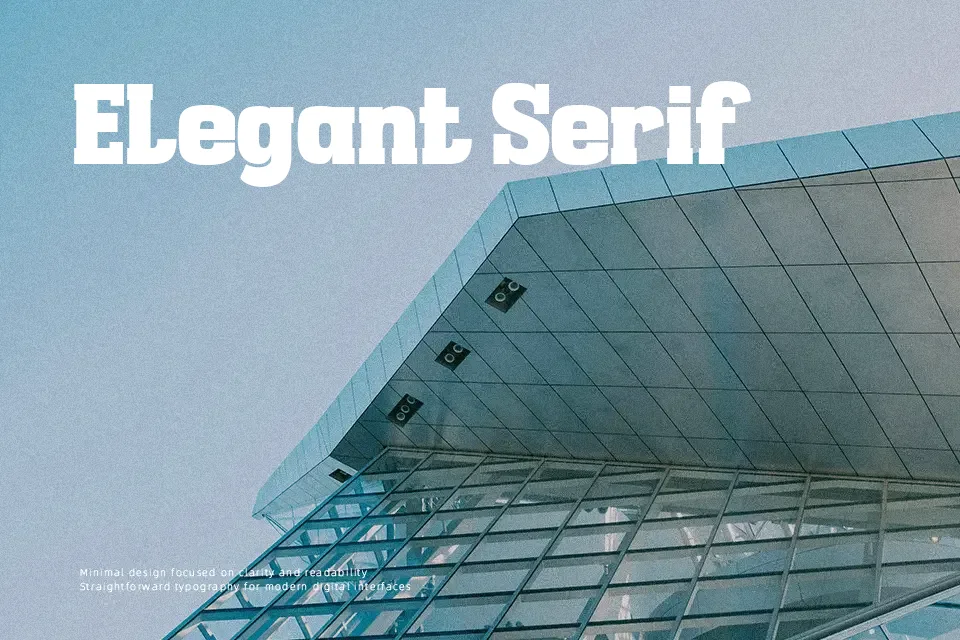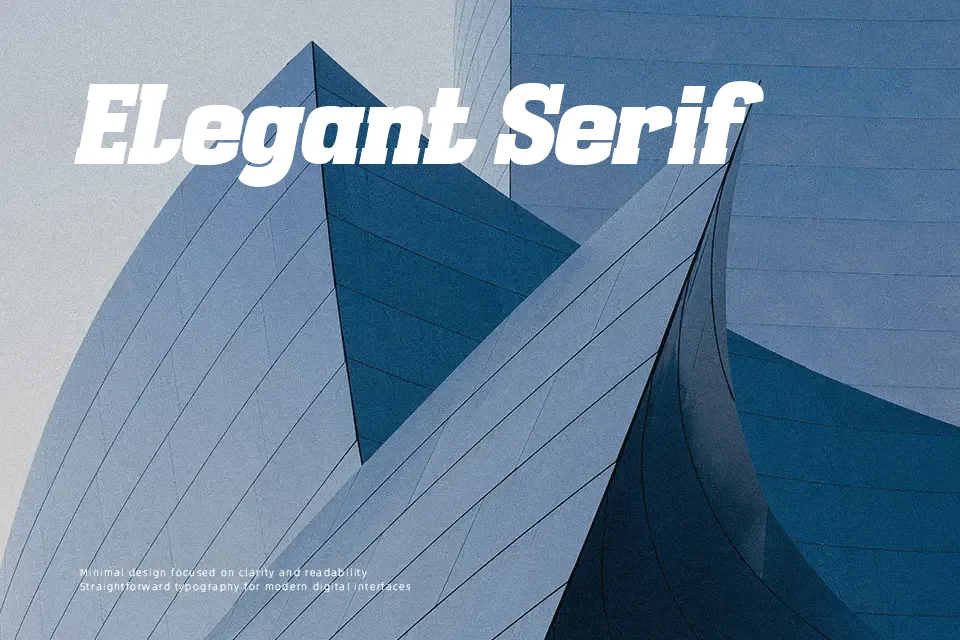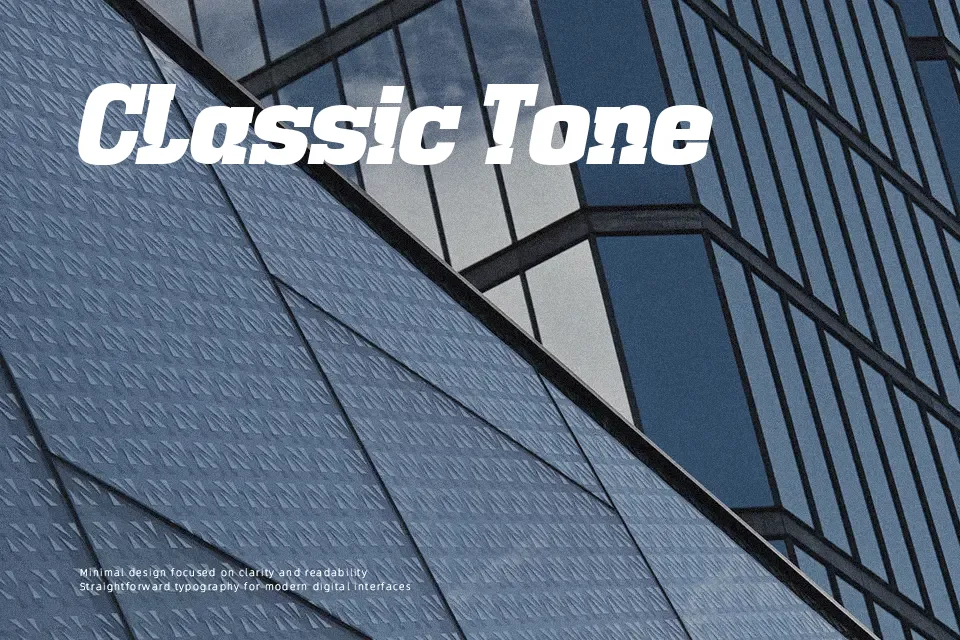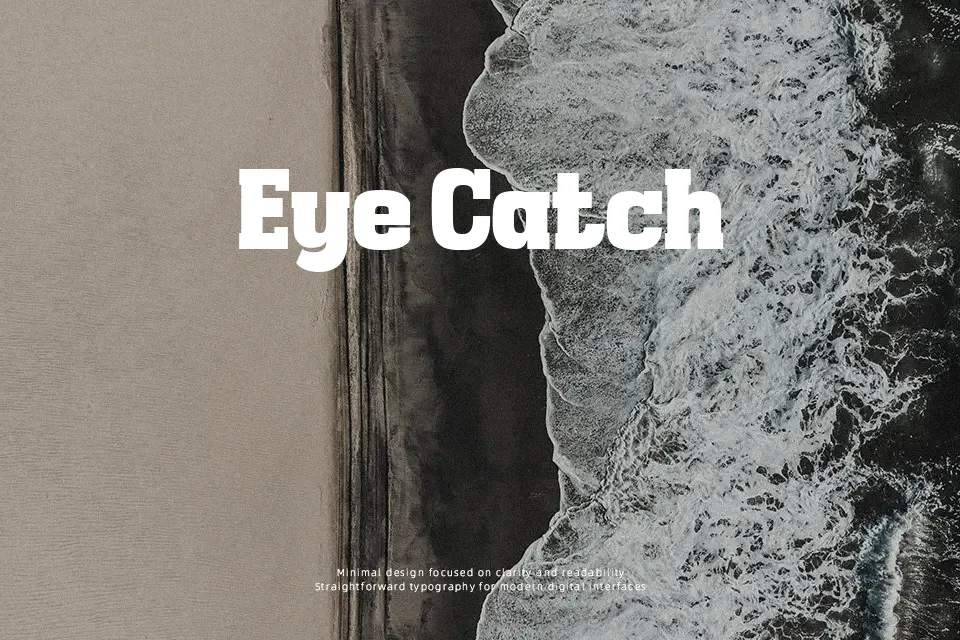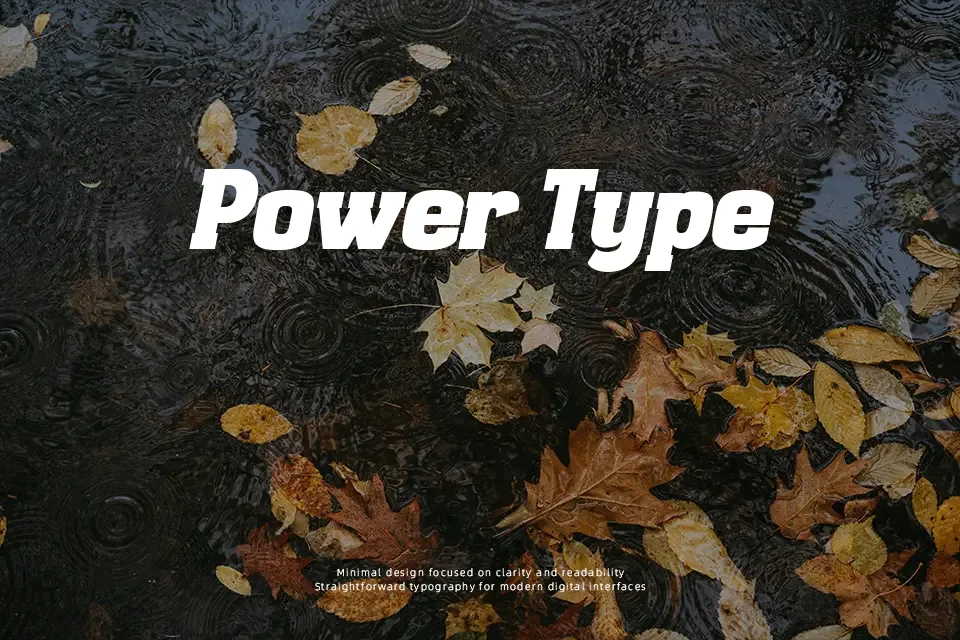
Bestvall Font
Wide-shouldered letterforms with pronounced geometric construction give Bestvall a look that commands attention from the first glance. The strokes are thick and assertive, with tight spacing that amplifies its compressed energy — making it feel less like a font and more like a visual statement. It handles headlines for sports team identities and event posters with real authority, and works equally well across packaging and social media assets where impact matters more than subtlety. That said, its character count tolerance is limited — extended text blocks become fatiguing quickly, and the bold, athletic personality clashes noticeably with professional or editorial environments. If your project calls for restraint, Bestvall will resist.
Best For:- Sports team logo and jersey typography
– Event posters and stadium signage headers
– Bold social media campaign visuals
– Streetwear and athletic apparel packaging
Not Ideal For:- Long-form body text or editorial layouts
– Corporate reports or formal business documents
– Wedding or luxury event stationery
– UI interfaces requiring high readability at small sizes
Perfect for branding, logo, and packaging, with a bold and condensed style.